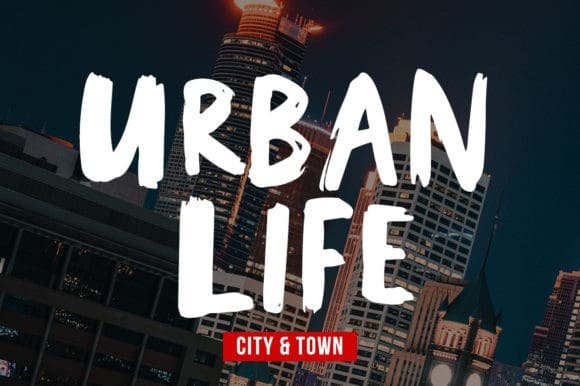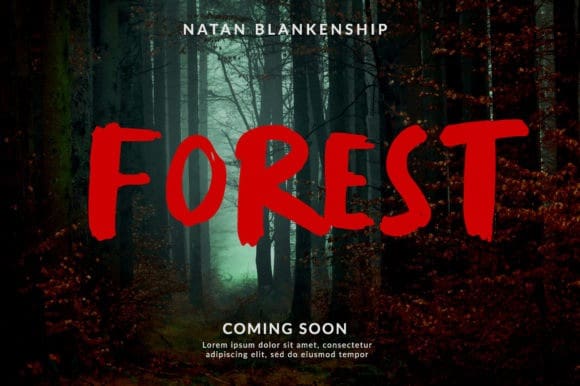
Hendry Brush Font
Hendry Brush Font, is a cool and brushed display font. No matter the topic, this font will be an incredible asset to your fonts’ library, as it has the potential to elevate any creation.